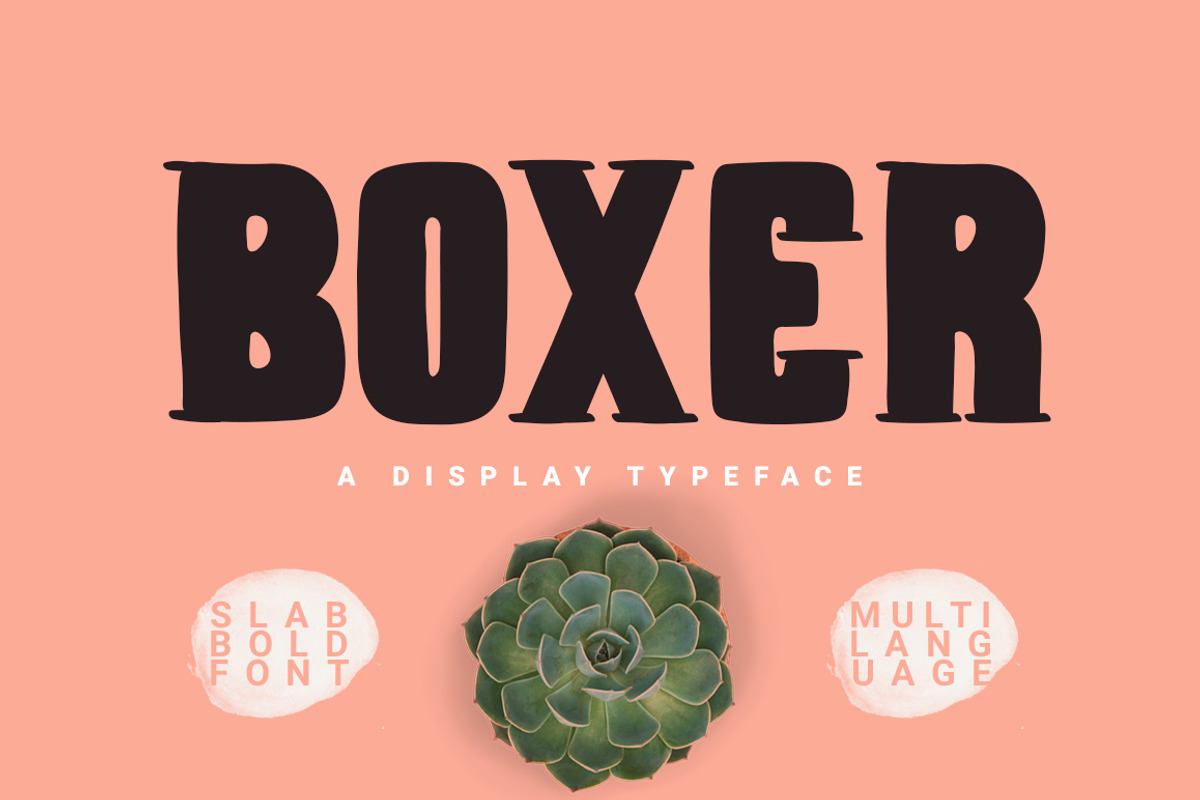
Boxer Typeface Free Download
Boxer Typeface Free Download is a bold and impactful font designed to make a strong visual statement. Please note, you are required to purchase this font for commercial use. It is available for free download for testing and personal projects only.
With its heavy strokes and clean lines, Boxer is perfect for headlines, posters, logos, sports branding, and editorial layouts. It captures attention instantly, making it ideal for designs that demand power and clarity. Its modern yet timeless aesthetic ensures versatility across a wide range of creative projects.